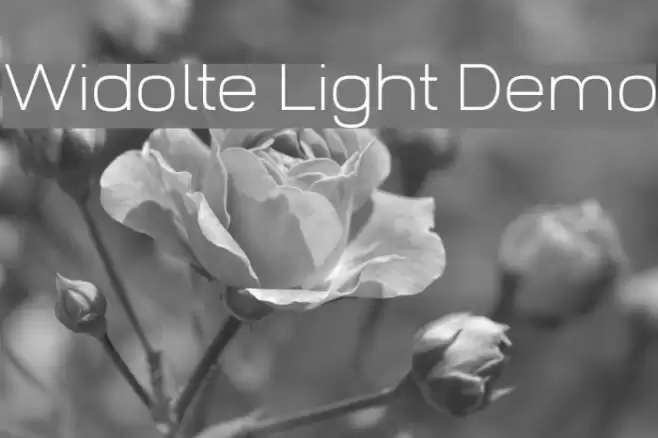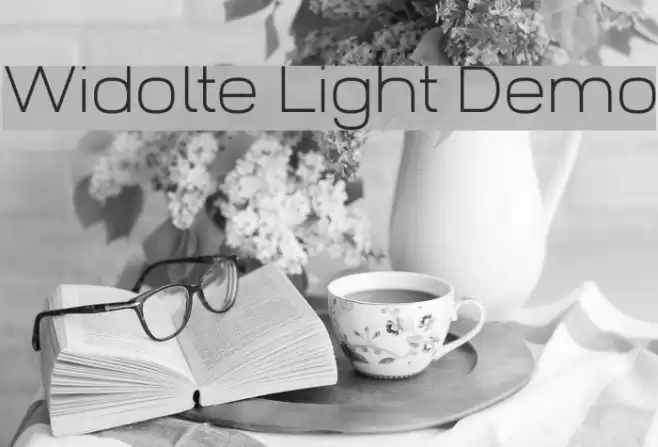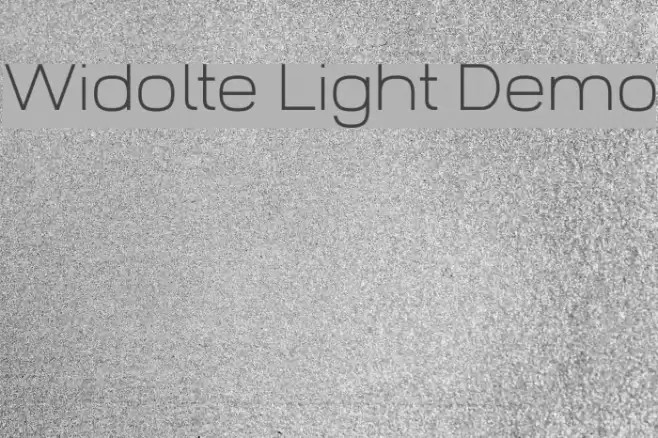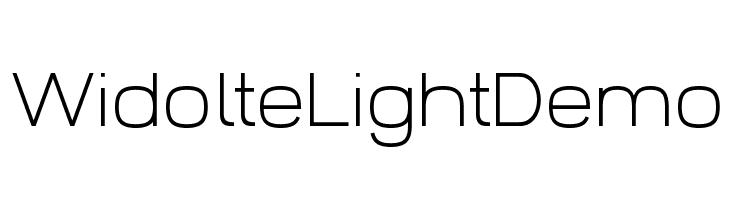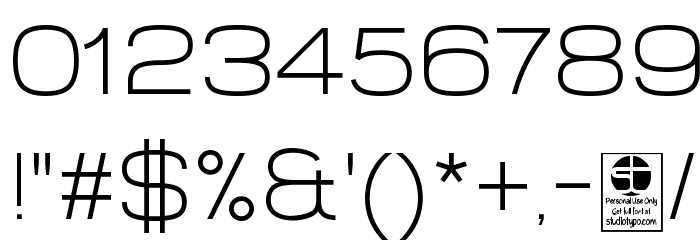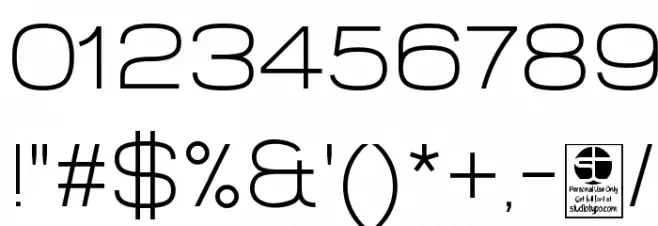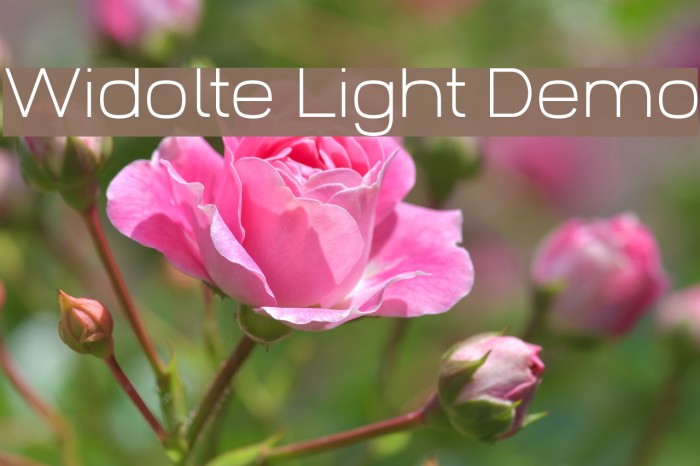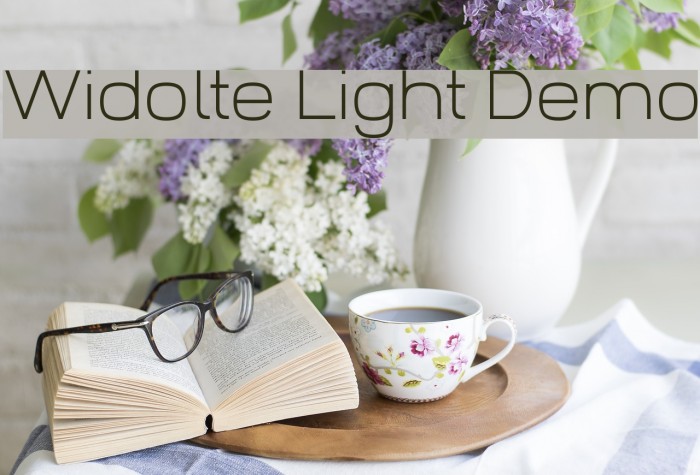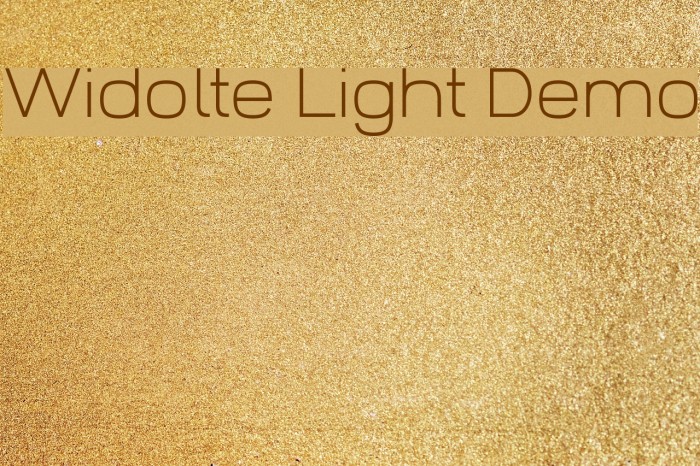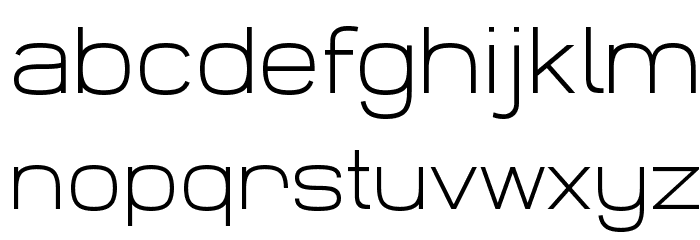
Widolte Light Demo Font
Widolte Light Demo Description
This font features a clean and modern sans-serif design with a light weight, making it ideal for minimalist and contemporary projects. The characters are evenly spaced with a normal width, providing a balanced and harmonious appearance. The uppercase and lowercase letters are well-proportioned, and the numerals are clear and easy to read. The special characters maintain the same sleek aesthetic, ensuring consistency across all text elements. The overall style is versatile, suitable for both digital and print media.
A modern, light sans-serif font with clean lines and balanced proportions from Uncategorized fonts.
- Proposed Projects: Ideal for branding, web design, editorial layouts, and user interfaces.
- Weight: Light
- Use Case: Headlines, Body text, Logos